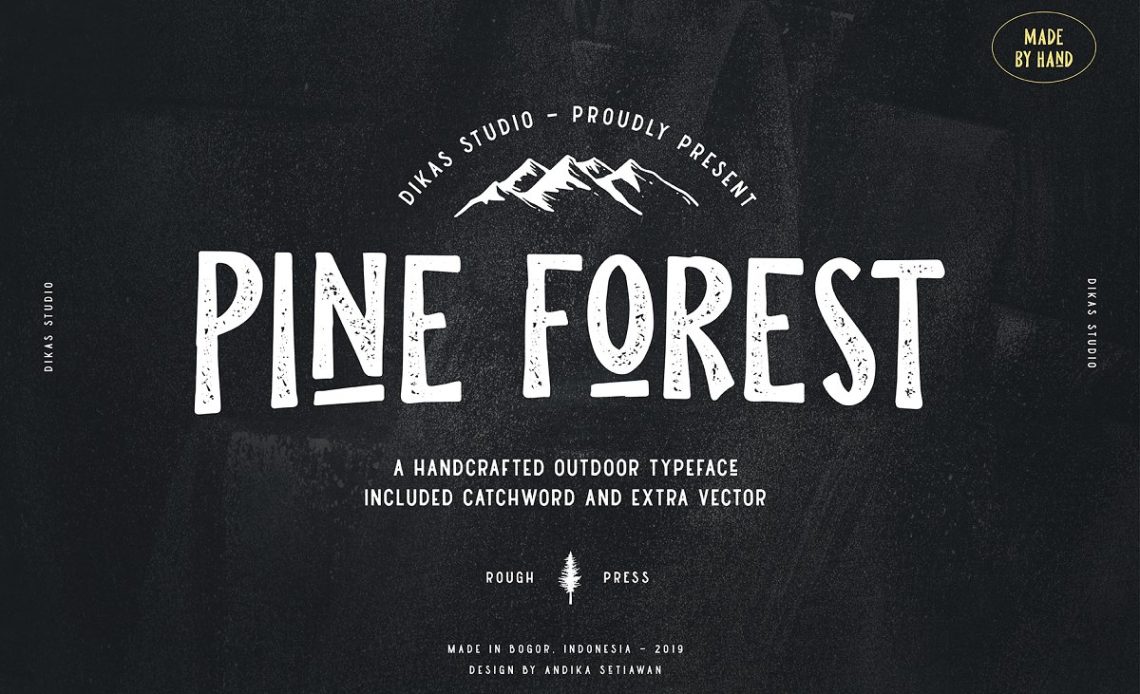
Are you looking for the best font for your hipster-themed design? Look no further than Pine Forest - Outdoor Typeface! Created by the talented Andika Setiawan, this display sans serif font is inspired by outdoor activities and has a playful, hand-drawn character that will add a unique touch to your designs.
In this package, you'll find two font styles - rough and press - as well as catchwords and extra vectors to help you create stunning designs. Pine Forest is perfect for typography design, branding, logos, product packaging, invitations, quotes, t-shirts, label badges, posters, and more.
With uppercase and lowercase letters, punctuation and numbers, multilingual language support, and ligatures, Pine Forest is a versatile font that can be used in many different ways. Plus, with the extras ornament in .ai format, you can add even more creativity to your designs.